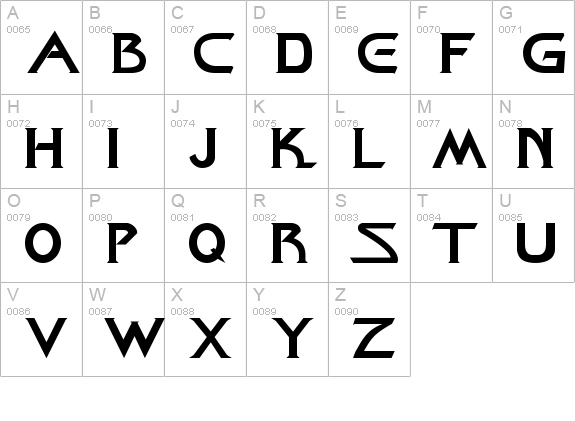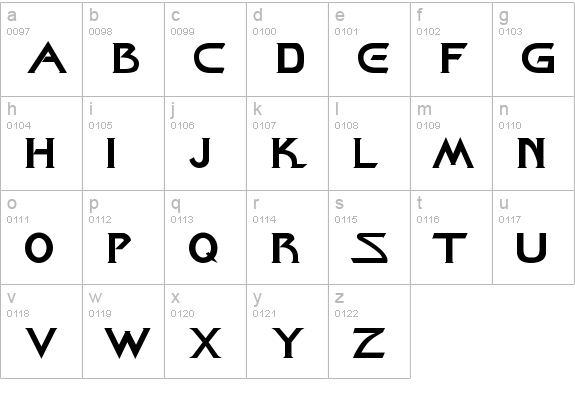
Introducing Star Cine, a mesmerizing font that will transport you to the glitz and glamour of the silver screen. This captivating typeface captures the essence of classic Hollywood, effortlessly blending elegance and modernity. Its sleek lines and bold curves exude a sense of sophistication, making it the perfect choice for any project that seeks to make a statement. Star Cine is not just visually stunning, but also versatile in its application. Whether you're designing movie posters, creating captivating headlines, or crafting eye-catching logos, this font will elevate your work to new heights. Its bold and commanding presence commands attention, ensuring that your message is delivered with impact. But what sets Star Cine apart from the rest is its accessibility. This font is freely available to download at FontsMarket.com, allowing designers and creatives of all levels to bring their visions to life without any limitations. Gone are the days of compromising on quality due to budget constraints – Star Cine is here to empower you with a high-quality font that won't break the bank. With its wide range of characters, including uppercase letters, lowercase letters, numbers, and punctuation marks, Star Cine provides endless possibilities for creative expression. Its smooth and seamless design ensures legibility across various platforms and mediums, leaving a lasting impression on your audience. So why wait? Unleash your creativity and add a touch of Hollywood magic to your designs with Star Cine. Download this exceptional font for free at FontsMarket.com and let your imagination run wild. Whether you're a seasoned professional or just starting out, Star Cine is the perfect companion to bring your visions to life. Get ready to shine like a star with Star Cine!